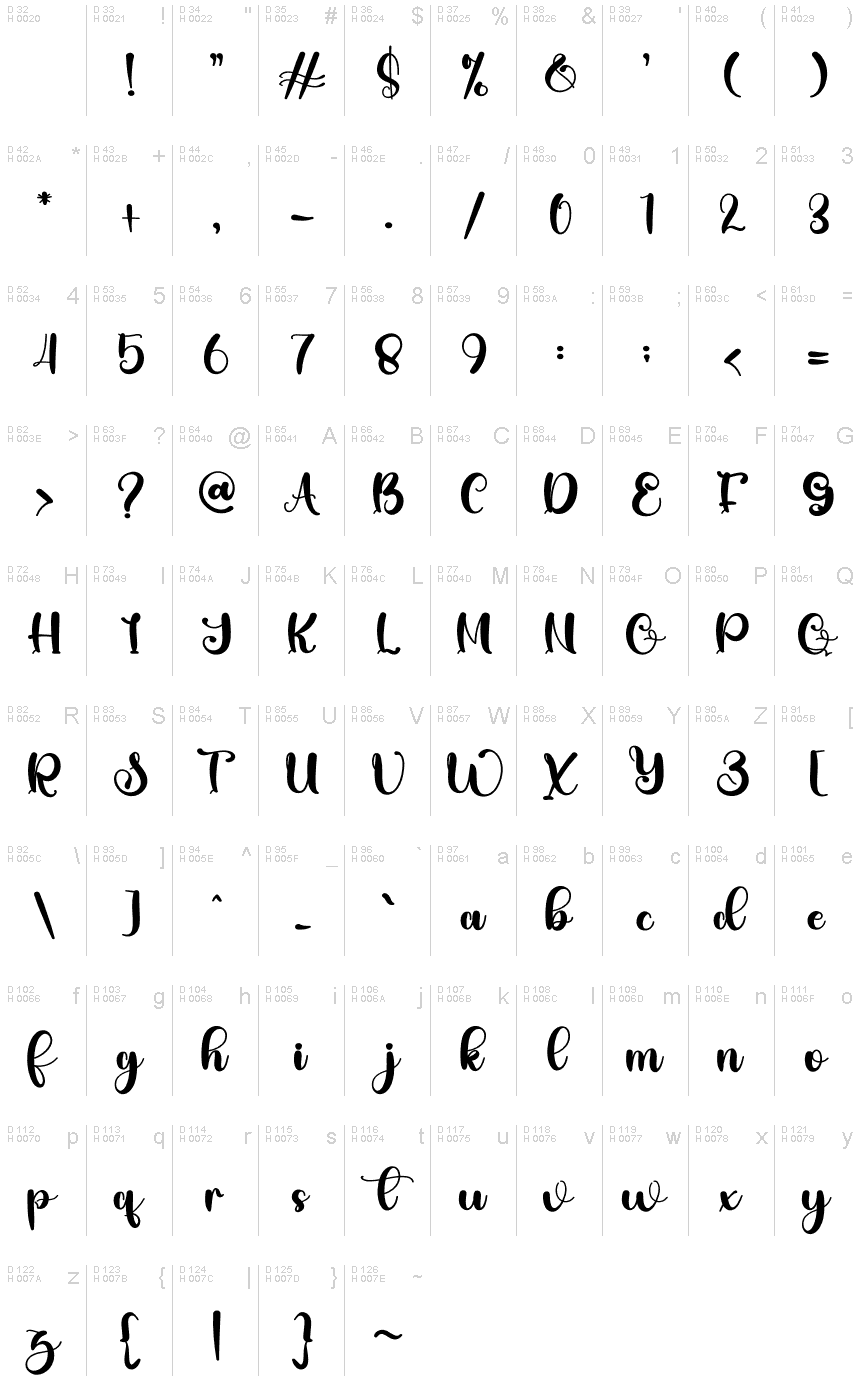
Daily Christmas
Daily Christmas, a creation of FreshtypeINK, stands out as a semi-bold calligraphy font that weaves the joyous spirit of the holiday season into every character. With its fluid and expressive strokes, this font is imbued with an aesthetic charm that elegantly captures the essence of Christmas cheer. The handcrafted quality resonates with warmth and invites a personal touch to any design.
The semi-bold weight ensures that Daily Christmas remains legible and impactful, making it an excellent choice for festive greetings, event invitations, and seasonal marketing collateral. Its calligraphic style adds a sophisticated flair to branding materials and product packaging, infusing them with a sense of celebration.
Whether employed in digital or print mediums, Daily Christmas has the versatility to make your creative projects resonate with heartfelt festivity. Its stylish appearance embodies the merriment of yuletide gatherings and winter wonderlands alike, making it ideally suited for anyone looking to sprinkle a dash of holiday magic into their designs.